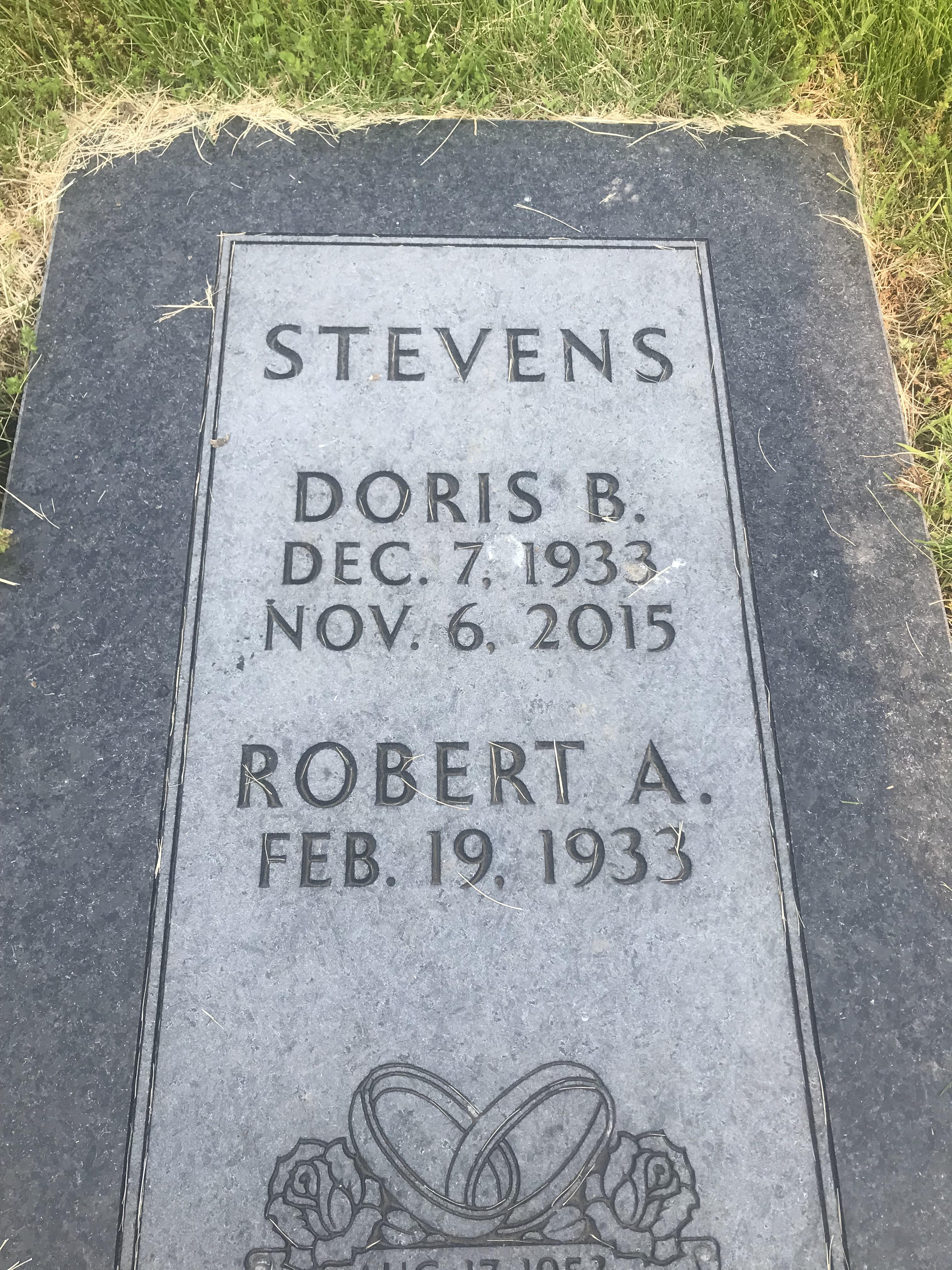
Font Identification
Hello Randy, this is a font called “Runestone”, which was apparently created by a couple of designers at the Coldspring Granite Company. A number of versions have been created by those in the industry but none are currently commercially available I’m afraid. If you need it matched for a second inscription, feel free to use the matching service, the MLC has matched it several times: https://www.monumentletteringcenter.com/product/cemetery-inscription-matching-service/